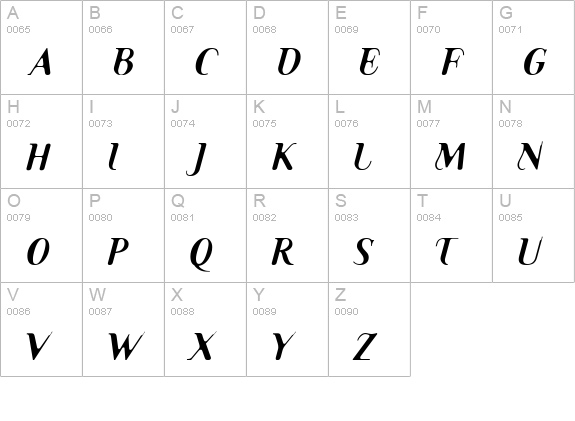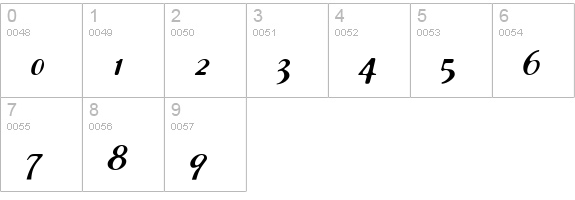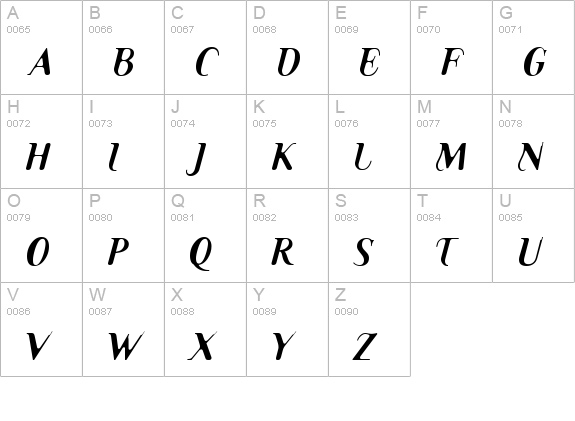
TemaCantanteBoldItalic Font Details
TemaCantanteBoldItalic font is a strikingly beautiful typeface that combines boldness and elegance in a unique way. Its bold and italicized design exudes confidence and sophistication, making it perfect for adding a touch of glamour to any project. This font is not only visually stunning but also highly versatile, suitable for a wide range of creative applications. Whether you are designing a logo, creating eye-catching headlines, or crafting stylish invitations, TemaCantanteBoldItalic font will effortlessly elevate your designs to the next level. One of the most appealing aspects of TemaCantanteBoldItalic font is that it is freely available to download at FontsMarket.com. You can easily access this font and enjoy its endless possibilities without any cost. This makes it a valuable resource for both professional designers and casual enthusiasts alike, providing them with a high-quality typeface that doesn't break the bank. With its bold and italicized characters, TemaCantanteBoldItalic font adds a touch of drama and flair to any design. The expressive curves and sleek lines create a sense of movement and sophistication, capturing the attention of viewers and leaving a lasting impression. Whether you are working on a website, a magazine layout, or a branding project, this font will effortlessly enhance your visual compositions, making them truly stand out. Its versatility and beauty make it a must-have in any designer's toolkit. So why wait? Download TemaCantanteBoldItalic font for free at FontsMarket.com and unlock the potential of this stunning typeface. Let your creativity soar and create captivating designs that leave a lasting impact.